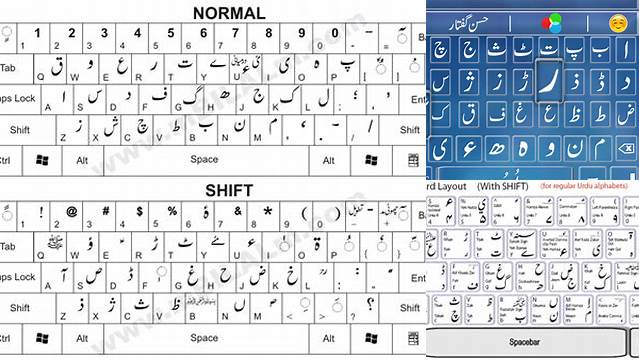
Why Use an Urdu Keyboard?
Before we jump into the specifics of downloading and installing Urdu keyboards, let's take a moment to understand why using an Urdu keyboard is so important. For Urdu speakers, typing in their native language is not just about communication; it's about preserving their culture and expressing themselves authentically. An Urdu keyboard allows you to type in the beautiful and intricate script of the Urdu language, making it easier to connect with friends, family, and the wider Urdu-speaking community.
Using an Urdu keyboard also opens up a world of opportunities in the digital realm. You can participate in online discussions, create content in Urdu, and access a wealth of information and resources that are available in the language. Whether you're a student, a professional, or simply someone who loves the Urdu language, having an Urdu keyboard on your devices is essential for staying connected and engaged in the digital age.
Moreover, typing in Urdu with the correct script enhances the clarity and accuracy of your communication. Urdu has a rich literary tradition and a unique set of characters and ligatures that are essential for conveying the nuances of the language. By using an Urdu keyboard, you can ensure that your writing is not only grammatically correct but also aesthetically pleasing and true to the spirit of the language.
Understanding Urdu Fonts and Keyboards
To effectively download Urdu fonts keyboard, it's crucial to understand the basics of Urdu fonts and keyboard layouts. Urdu, written in a modified version of the Arabic script, requires specific fonts that support its unique characters and ligatures. These fonts ensure that the text is displayed correctly and is easy to read. Common Urdu fonts include Alvi Nastaleeq, Nafees Nastaleeq, and Jameel Noori Nastaleeq, each offering a slightly different aesthetic.
Urdu keyboards come in various layouts, but the most common is the phonetic keyboard. This layout maps Urdu characters to English keyboard keys based on phonetic similarity. For instance, the key for 'A' might produce the Urdu letter 'ا' (alif), which has a similar sound. This makes it relatively easy for users familiar with the English keyboard to learn and adapt to Urdu typing.
Another type of Urdu keyboard is the traditional layout, which arranges characters based on their frequency of use and historical conventions. While this layout might be more efficient for experienced Urdu typists, it can be challenging for beginners to master. Regardless of the layout, having a dedicated Urdu keyboard allows you to type directly in Urdu without having to switch between languages or use awkward workarounds.
When you download Urdu fonts keyboard, you're essentially getting two components: the font, which determines how the characters look, and the keyboard layout, which determines how you input those characters. These two components work together to enable you to type in Urdu seamlessly on your devices. Make sure that the fonts you choose are compatible with the keyboard layout you're using for the best results.